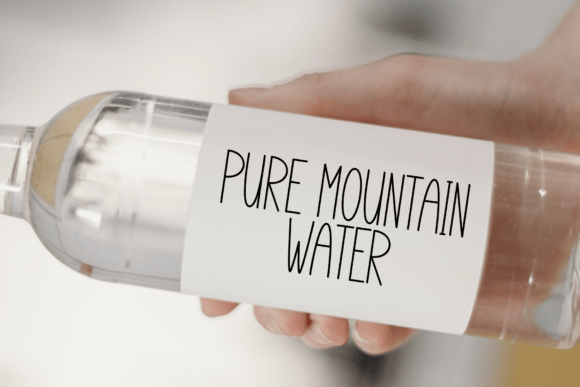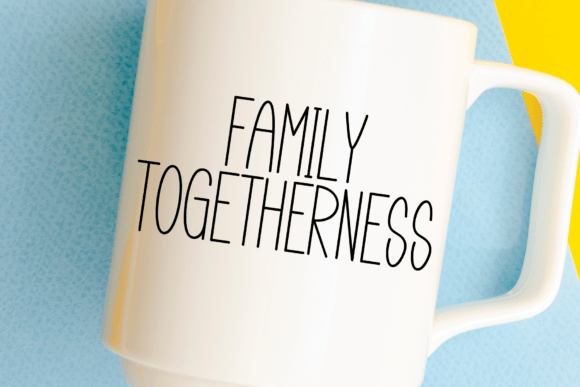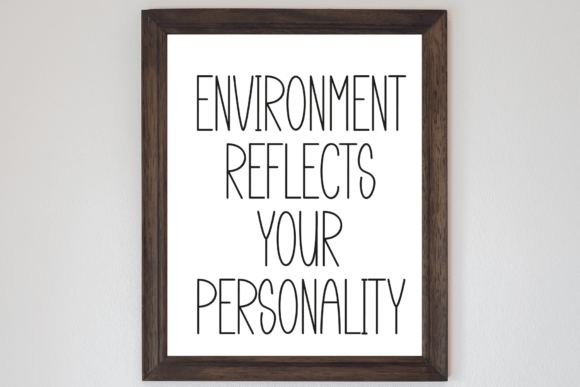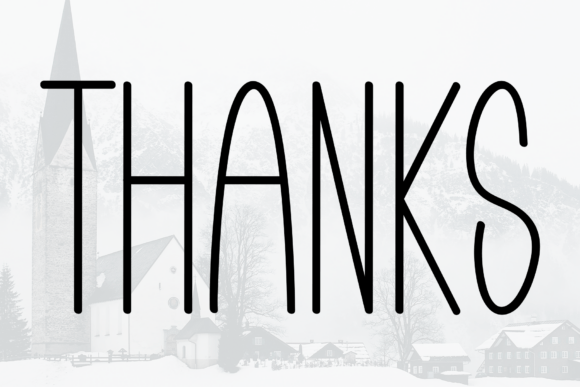
Introducing Christmas House Font: The Perfect Blend of Luxury and Casual
Are you looking for a font that exudes elegance and sophistication, yet still has a relaxed and casual vibe? Look no further than Christmas House Font, a beautiful handwritten font that is sure to elevate your designs to the next level. In this article, we’ll dive into the world of Christmas House Font, exploring its unique features, uses, and benefits for designers and crafters.
What is Christmas House Font?
Christmas House Font is a stunning handwritten font that has been carefully crafted to resemble writing with a marker. Its relaxed and sporty feel makes it an ideal choice for a wide range of design projects, from branding and logos to wedding supplies, greeting cards, and marketing promotions. With its unique blend of luxury and casualness, Christmas House Font is sure to make your designs stand out from the crowd.
Key Features of Christmas House Font
• Handwritten with a marker feel: Christmas House Font has a distinctive handwritten feel that gives it a personal and authentic touch.
• Relaxed and sporty vibe: The font’s relaxed and sporty feel makes it perfect for designs that require a casual yet sophisticated look.
• Luxurious and elegant: Despite its casual feel, Christmas House Font still exudes luxury and elegance, making it suitable for high-end designs.
• Versatile: This font can be used for a wide range of design projects, from branding and logos to wedding supplies, greeting cards, and marketing promotions.
Uses of Christmas House Font
Christmas House Font is an incredibly versatile font that can be used for various design projects, including:
• Branding and logos: Create a unique and memorable brand identity with Christmas House Font.
• Wedding supplies: Add a touch of elegance and sophistication to your wedding designs, such as invitations, programs, and place cards.
• Greeting cards: Create beautiful and heartfelt greeting cards for special occasions, such as Christmas, birthdays, and anniversaries.
• Fashion and lookbooks: Use Christmas House Font to add a luxurious and high-end feel to your fashion designs and lookbooks.
• Marketing promotions: Elevate your marketing materials, such as brochures, flyers, and posters, with the sophisticated look of Christmas House Font.
Benefits of Using Christmas House Font
By incorporating Christmas House Font into your designs, you can enjoy several benefits, including:
• Unique and distinctive look: Christmas House Font will give your designs a unique and distinctive look that sets them apart from others.
• Elegance and sophistication: The font’s luxurious and elegant feel will add a touch of sophistication to your designs.
• Flexibility: Christmas House Font can be used for a wide range of design projects, making it a valuable addition to your font library.
• Easy to read: The font’s clear and legible design makes it easy to read, even at small sizes.
Tips for Using Christmas House Font
To get the most out of Christmas House Font, here are some tips to keep in mind:
• Use it sparingly: Use Christmas House Font sparingly to add emphasis and create visual interest in your designs.
• Pair it with other fonts: Experiment with pairing Christmas House Font with other fonts to create a unique and visually appealing look.
• Adjust the size and color: Adjust the size and color of Christmas House Font to suit your design needs and create a cohesive look.
Font Name Christmas House Font
Author Berkah Shop
Christmas House Font is a beautiful and versatile font that is perfect for designers and crafters looking to add a touch of luxury and elegance to their designs. With its unique handwritten feel, relaxed and sporty vibe, and luxurious and elegant look, Christmas House Font is sure to elevate your designs to the next level. Whether you’re working on branding and logos, wedding supplies, greeting cards, or marketing promotions, Christmas House Font is an excellent choice.